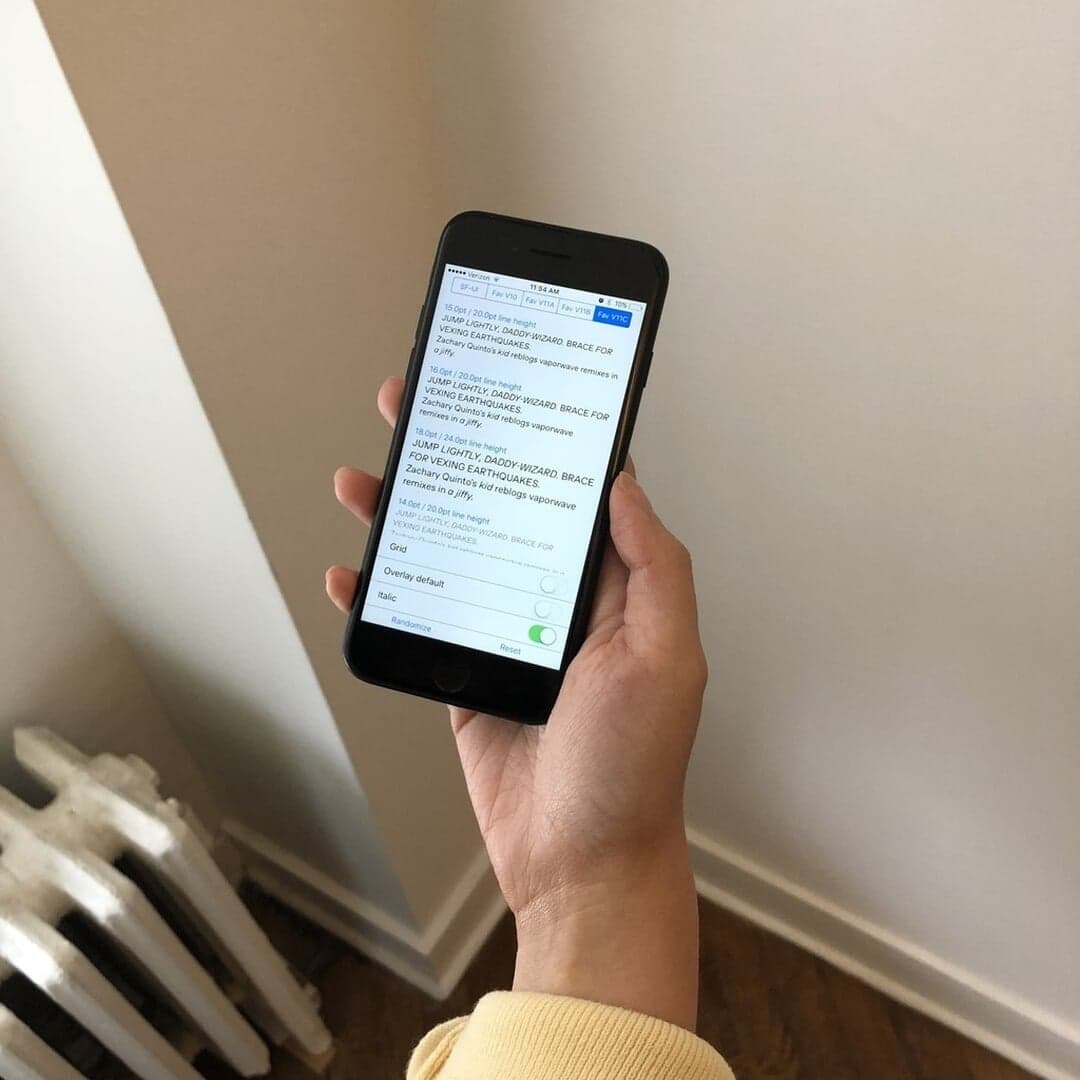
Custom Typeface and Logo Redesign for Tumblr
They removed Tumblr’s period right before the platform’s collapse.
Dinamo collaborated with Tumblr’s in-house creative studio to create a bespoke version of their ABC Favorit typeface, tailored for the platform’s brand and product design needs. The project included refining Tumblr’s logo for improved legibility and cohesion across digital environments, resulting in a crisp, geometric, and flexible visual identity.
Insights- Dinamo removed the full stop that had sat in Tumblr's logo for more than a decade, so the mark could sit openly, without finality — an ending taken out of the sentence rather than a shape redrawn.
- Dinamo spent roughly eighteen months building a bespoke version of ABC Favorit for Tumblr, down to rounded punctuation and geometric forms. A hidden display behavior, originally called “Rock’n’Roll mode” and later renamed Connected, merges the first and last letters of a word with an underline.
- Tumblr even built a dedicated iOS tool just to test the typeface, showing how deeply the identity was integrated into product design rather than treated as a simple brand refresh.
- The redesign landed in August 2018, just months before Tumblr banned adult content in December 2018; traffic collapsed, and by the next year Verizon sold the platform for about $3 million after Yahoo had paid around $1.1 billion.
- Typography did the strategic work here: crisp, flexible, and cohesive across digital environments, and loaded with symbolic intent — in a media brand whose fortunes changed almost immediately after launch.